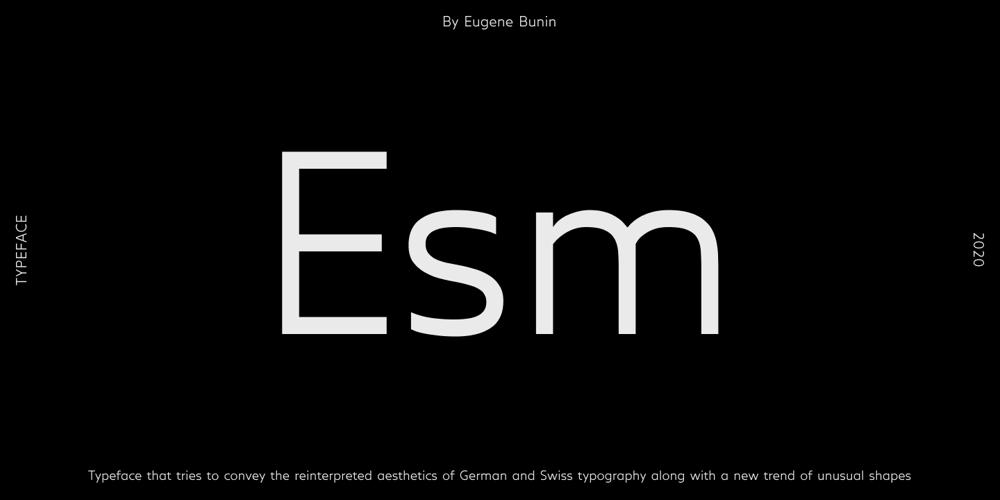
Esm font
Esm Font Family was designed by Eugene Bunin and published by Harvester Type. Esm contains 5 styles and family package options. Esm is a font that tries to convey the reinterpreted aesthetics of German and Swiss typography along with a new trend of unusual shapes. The font has a different approach to the internal elements of letters-ovals that have a straight line on one side, drawing the glyph “a” example. I wanted to diversify the font with different styles to avoid the effect of triviality of machine text. The font has a large language support and contains 626 characters.And a large number of special characters. The font family is universal. It is suitable for large text, magazines, posters, logos, and headlines. Thanks to 6 different font styles and customized kerning, the font will look just fine. The thin print is incredibly elegant. The regular is great for a large amount of text. And bold for posters and headlines.Named by the French feminine name Esm. The name itself has a meaning: dear and beloved. I hope my font will convey these feelings.